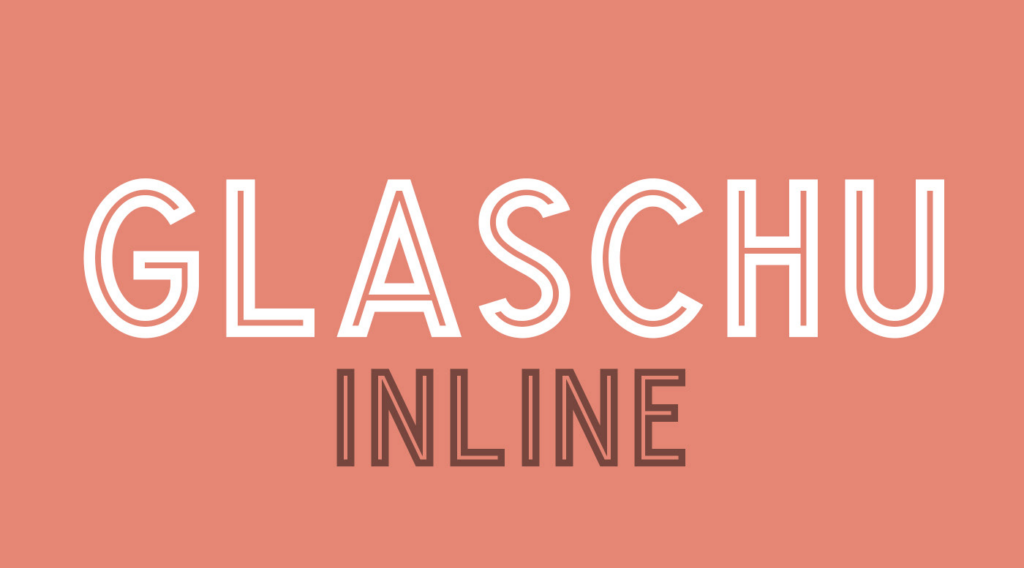
Glaschu Inline is a bold, eye-catching display font with clean uppercase letters. It’s 100% free with a whole bunch of characters, numbers, and symbols!